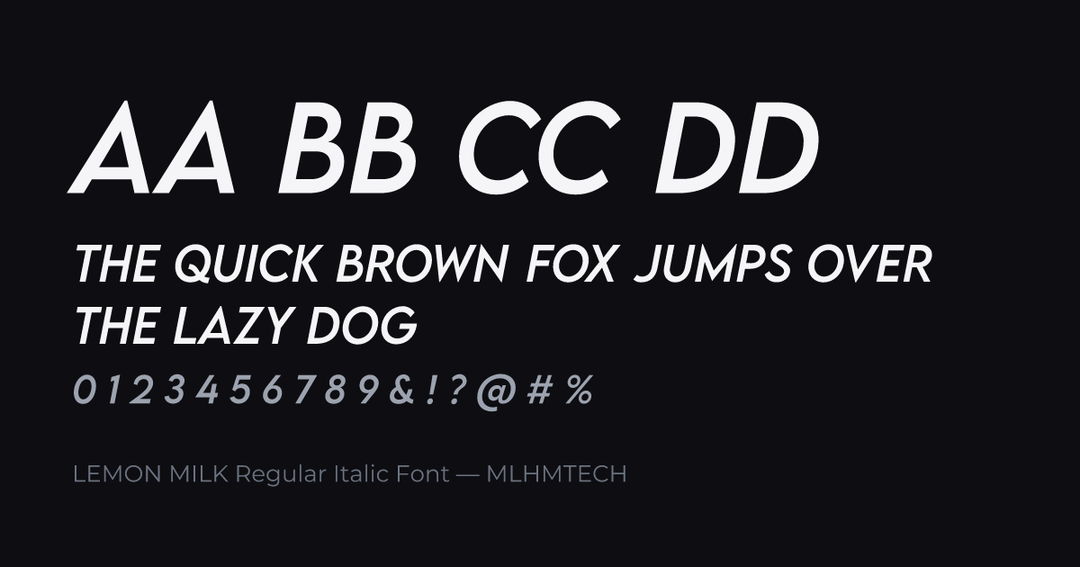
LEMON MILK Regular Italic Font
LEMON MILK Regular Italic is a bold, geometric sans-serif font with a distinctive slant. Ideal for eye-catching headlines and modern designs.
LEMON MILK Regular Italic is a high-contrast, geometric sans-serif font that commands attention. Its bold weight and italic slant give it a dynamic, energetic feel, making it perfect for headlines, posters, and branding.
Whether you're creating a logo, social media graphic, or print material, LEMON MILK Regular Italic adds a touch of sophistication and impact. Its legibility at large sizes makes it a go-to choice for display typography.